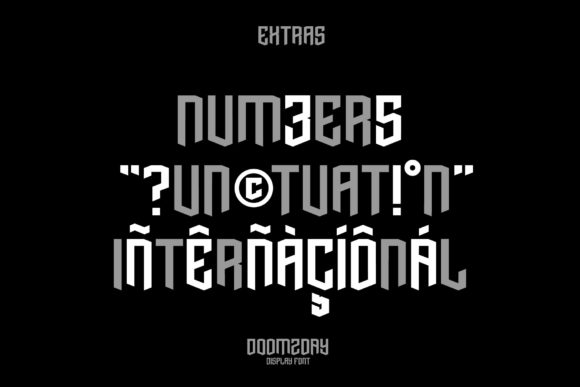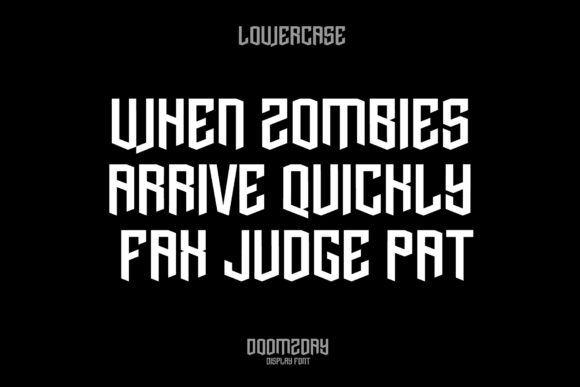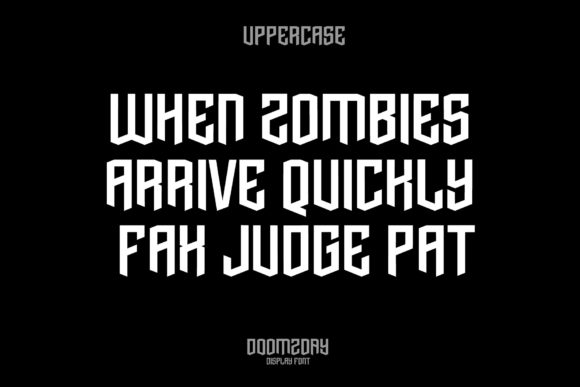
Introducing Doomzday Font: The Ultimate Choice for Bold and Creative Designs
Are you tired of using the same old fonts for your designs? Look no further! Doomzday Font is here to revolutionize your creative projects with its cool, bold, and robotic display style. This font is perfect for designers and crafters who want to make their ideas stand out from the crowd. With Doomzday, the only limit is your imagination!
What is Doomzday Font?
Doomzday Font is a modern, sans-serif display font that exudes a futuristic and robotic feel. Its bold and chunky design makes it perfect for headlines, titles, and any other text that needs to grab attention. The font is designed to be highly legible, even at small sizes, making it versatile for various design applications.
Key Features of Doomzday Font
- Bold and Chunky Design: Doomzday Font features a bold and chunky design that makes it perfect for creating eye-catching headlines and titles.
- Robotic and Futuristic Feel: The font’s robotic and futuristic feel makes it ideal for designs that require a technological or sci-fi theme.
- Highly Legible: Despite its bold design, Doomzday Font is highly legible, even at small sizes, making it suitable for various design applications.
How to Use Doomzday Font in Your Designs
Doomzday Font is a versatile font that can be used in a variety of design applications, including:
- Graphic Design: Use Doomzday Font to create eye-catching posters, flyers, and brochures that grab attention.
- Digital Art: Add a futuristic touch to your digital art with Doomzday Font, perfect for creating sci-fi themed artwork.
- Crafting: Use Doomzday Font to create unique and personalized crafts, such as iron-on designs, stickers, and more.
- Web Design: Use Doomzday Font to create bold and attention-grabbing headlines and titles for your website.
Benefits of Using Doomzday Font
Using Doomzday Font in your designs offers several benefits, including:
- Increased Visibility: Doomzday Font’s bold design makes it perfect for creating eye-catching headlines and titles that grab attention.
- Improved Legibility: The font’s highly legible design ensures that your text is easy to read, even at small sizes.
- Enhanced Creativity: With Doomzday Font, you can add a unique and futuristic touch to your designs, taking your creativity to the next level.
| Font Name | Doomzday Font |
| Author | Alphabet Agency |
In conclusion, Doomzday Font is a cool, bold, and robotic display font that is perfect for designers and crafters who want to make their ideas stand out. With its highly legible design, versatility, and ease of use, Doomzday Font is an excellent choice for a wide range of design applications. So why wait? Add Doomzday Font to your design arsenal today and unlock your creative potential!